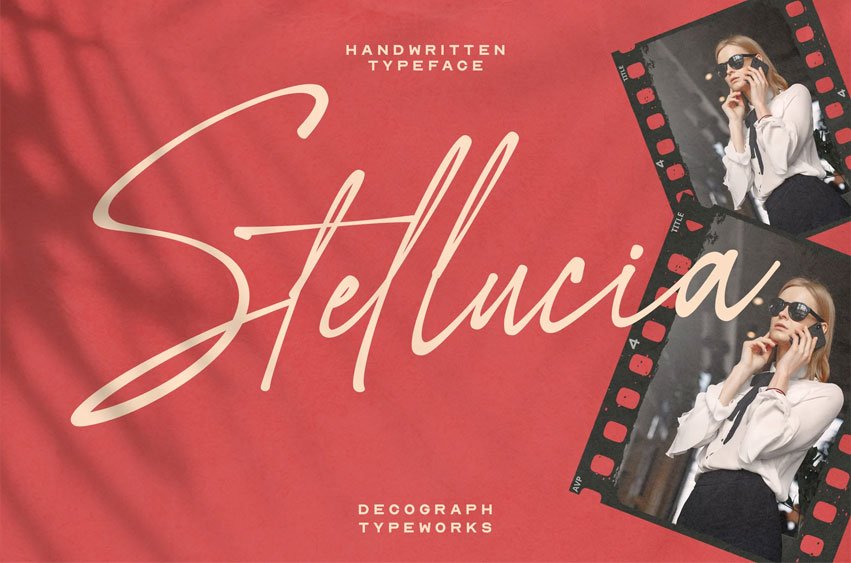
Stellucia Font When elegance meets effortless charm — we unveil STELLUCIA. A handwritten script font that flows with natural strokes, Stellucia captures the sophistication of modern calligraphy while keeping a personal and approachable touch.
Crafted with smooth curves and refined letterforms, this typeface radiates femininity, romance, and timeless beauty. Perfect for branding, fashion editorials, wedding invitations, social media aesthetics, and lifestyle projects — Stellucia brings a graceful personality to every design.
Its versatility shines across both digital and print works, balancing luxury with warmth. Whether you aim for stylish headlines, elegant logotypes, or eye-catching packaging, Stellucia ensures your words always feel handwritten with love.